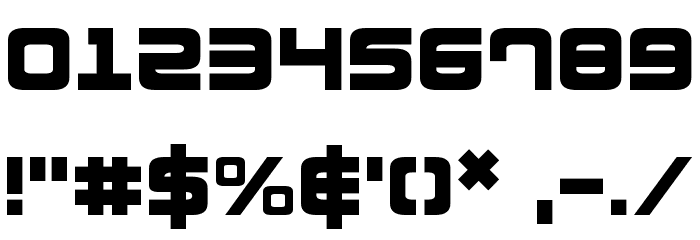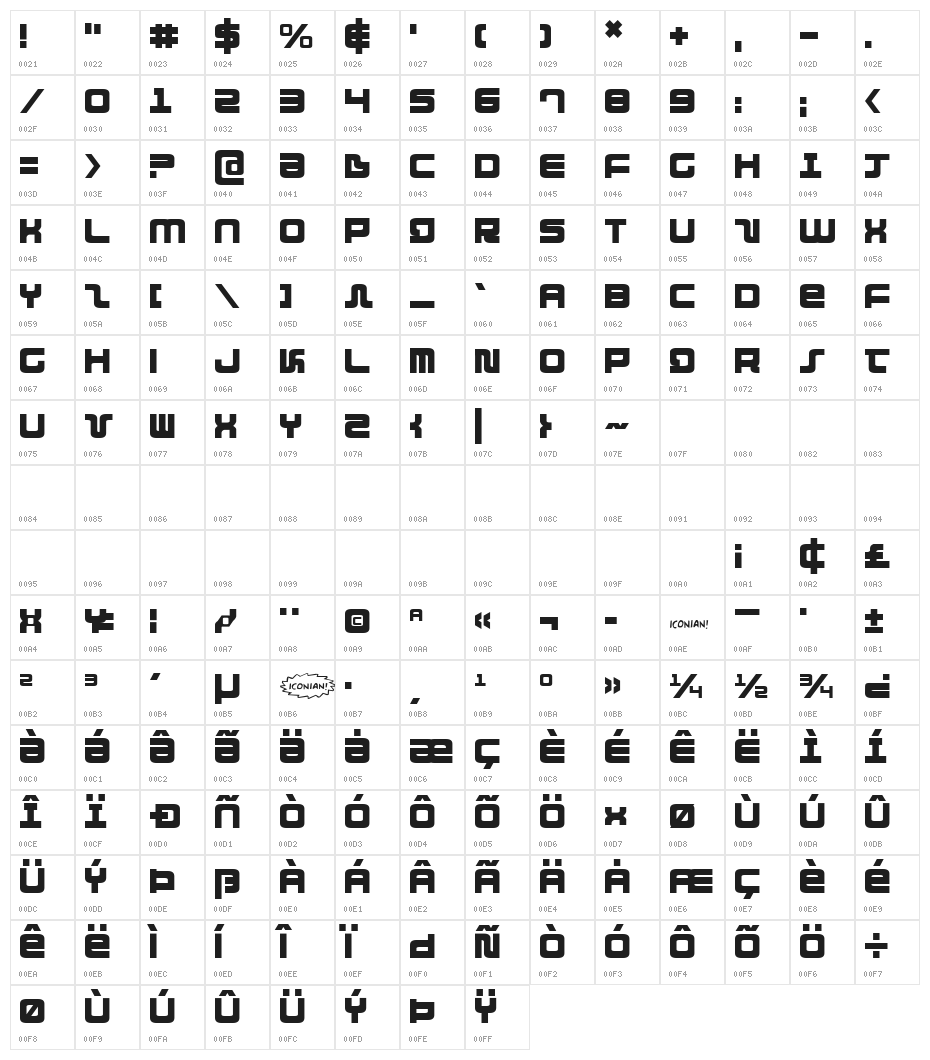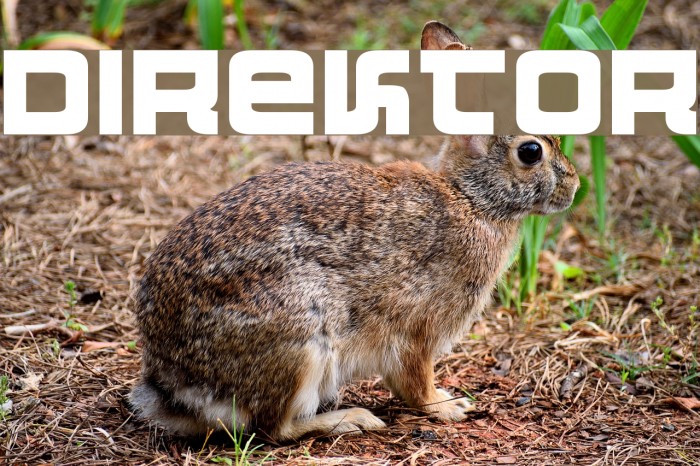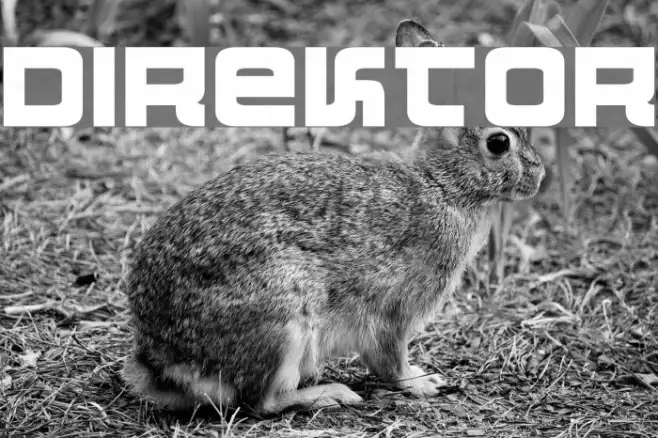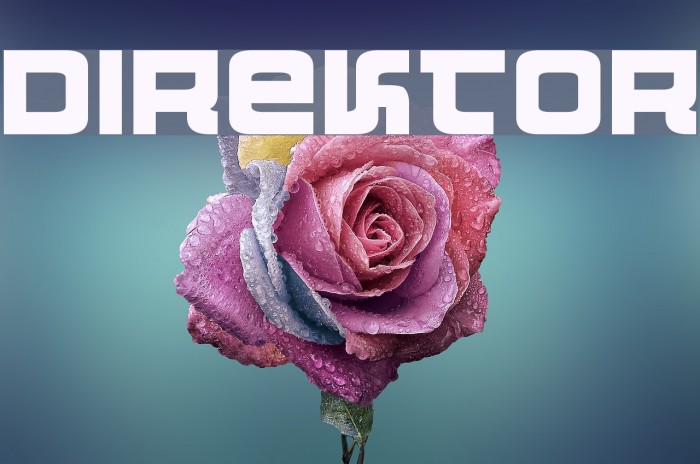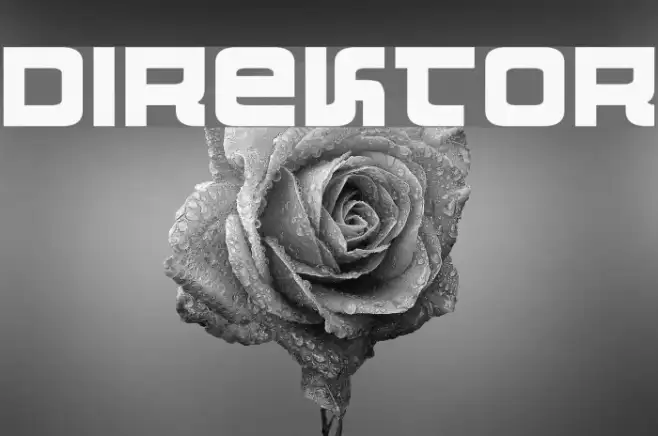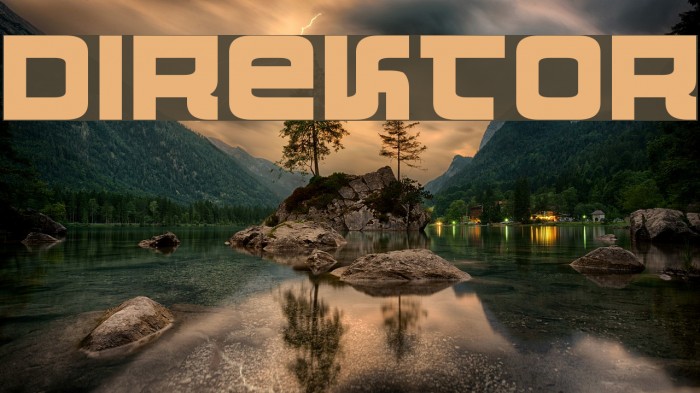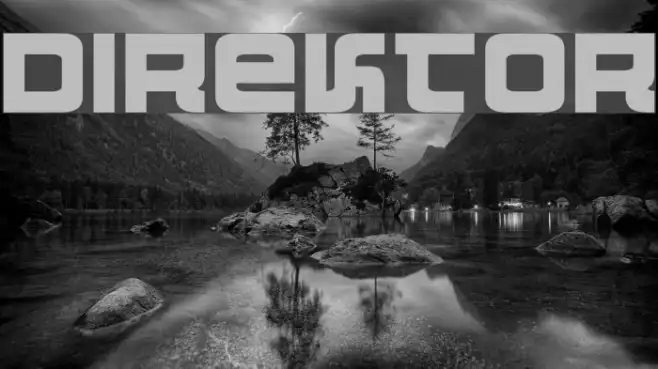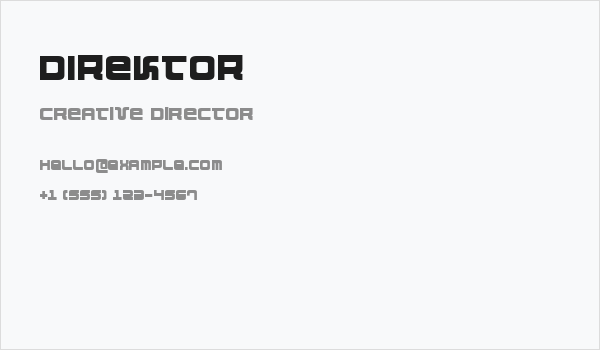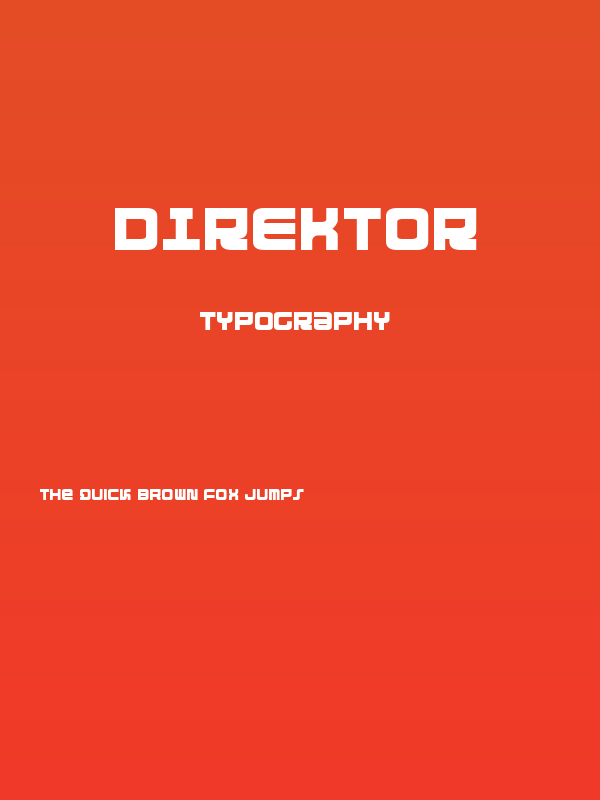
Direktor Font
Direktor Description
This font features a bold, geometric design with a futuristic flair. The characters are constructed with thick, uniform strokes, giving them a strong presence. The overall appearance is modern and slightly industrial, with a focus on clean lines and angular shapes. The uppercase letters are particularly striking, with a consistent height and width that create a cohesive look. The numerals and special characters maintain the same bold style, ensuring uniformity across all text. This font is ideal for projects that require a contemporary and assertive aesthetic.
| Proposed Projects | Ideal for technology branding, sci-fi themed designs, video game interfaces, and modern advertising. |